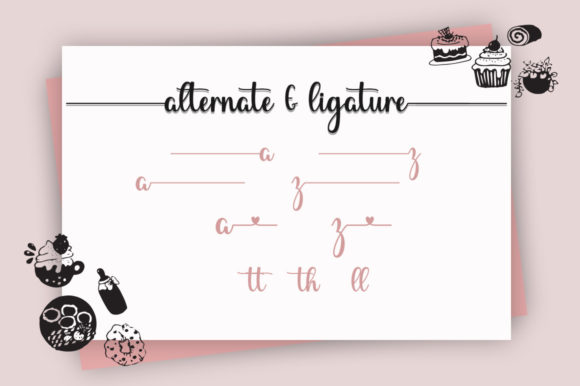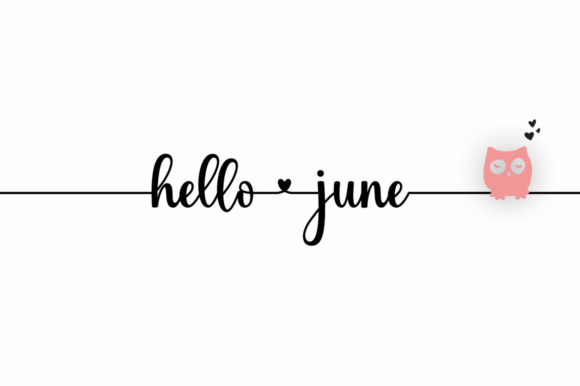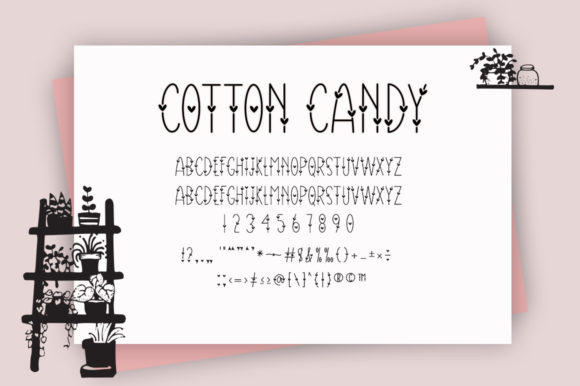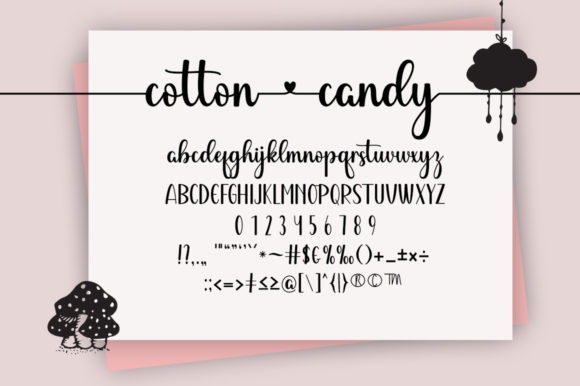
Cotton Candy Font: The Sweetest Addition to Your Design Collection
Are you a designer or crafter looking for a font that adds a touch of playfulness and elegance to your projects? Look no further than the Cotton Candy Font, a beautiful duo font that combines decorative and handwritten elements. This stunning font features dainty and delicate swashes that will elevate your designs and give them a unique, eye-catching look.
What Makes Cotton Candy Font So Special?
Cotton Candy Font is more than just a pretty font – it’s a versatile tool that can be used in a wide range of crafty ideas. Whether you’re designing invitations, greeting cards, or social media graphics, this font is sure to impress. Its elegant and playful design makes it perfect for projects that require a touch of whimsy and sophistication.
Key Features of Cotton Candy Font
- Decorative and Handwritten Duo Font: Cotton Candy Font combines two font styles in one, giving you the flexibility to create a wide range of designs.
- Dainty and Delicate Swashes: The font features beautiful swashes that add an original and appealing look to your designs.
- PUA Encoded: Cotton Candy Font is PUA encoded, which means you can access all of the glyphs and swashes with ease.
Benefits of Using Cotton Candy Font
So why choose Cotton Candy Font for your design projects? Here are just a few benefits of using this amazing font:
- Easy to Use: With its PUA encoding, Cotton Candy Font is easy to use, even for designers who are new to using special fonts.
- Versatile: The font can be used in a wide range of projects, from invitations and greeting cards to social media graphics and more.
- Unique and Eye-Catching: The dainty and delicate swashes in Cotton Candy Font will give your designs a unique and eye-catching look that sets them apart from the crowd.
How to Use Cotton Candy Font in Your Designs
Using Cotton Candy Font in your designs is easy. Here are a few tips to get you started:
- Pair it with Other Fonts: Cotton Candy Font pairs well with other fonts, so feel free to experiment with different combinations to find the one that works best for your project.
- Use it for Headings and Titles: The decorative and handwritten elements of Cotton Candy Font make it perfect for headings and titles.
- Add Swashes and Glyphs: Use the PUA encoding to access the font’s swashes and glyphs, and add a touch of elegance and whimsy to your designs.
Perfect for Crafters and Designers
Cotton Candy Font is a must-have for crafters and designers who want to add a touch of playfulness and elegance to their projects. Whether you’re creating:
- Invitations: Use Cotton Candy Font to create beautiful and unique invitations for weddings, parties, and other special occasions.
- Greeting Cards: Add a touch of whimsy and sophistication to your greeting cards with Cotton Candy Font.
- Social Media Graphics: Use Cotton Candy Font to create eye-catching social media graphics that will help your brand stand out.
| Font Name | Cotton Candy Font |
| Author | Fillo Graphic |
In conclusion, Cotton Candy Font is a beautiful and versatile font that is perfect for designers and crafters who want to add a touch of playfulness and elegance to their projects. With its decorative and handwritten duo font, dainty and delicate swashes, and PUA encoding, Cotton Candy Font is a must-have for anyone looking to create unique and eye-catching designs.